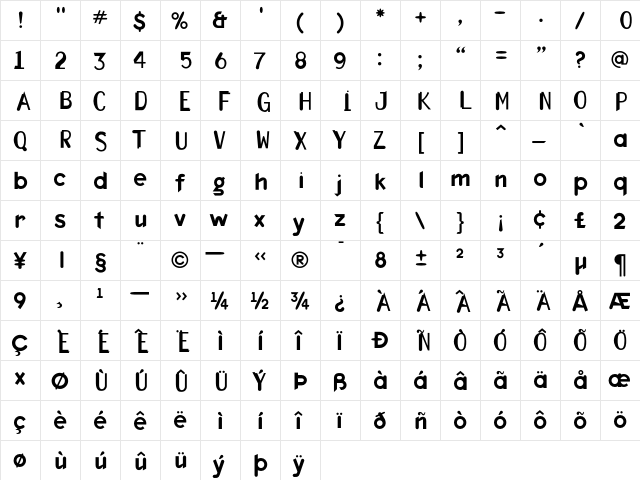
Awkward Regular Font Preview
Awkward Regular
Design Context for Awkward Typeface
Awkward is a composed and adaptable typeface that performs quietly and consistently across a wide range of design contexts.